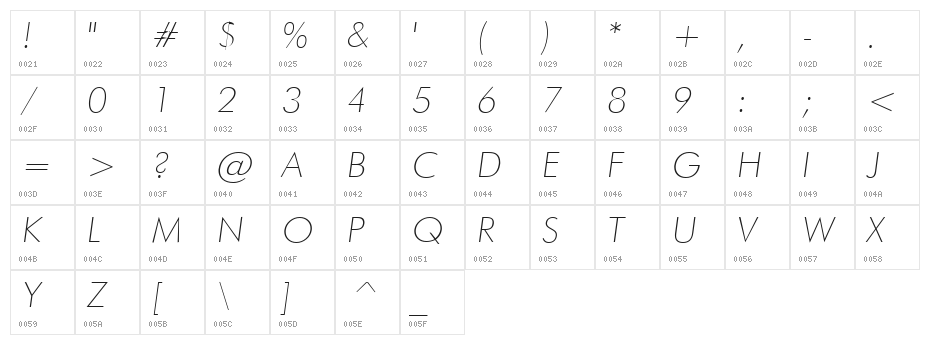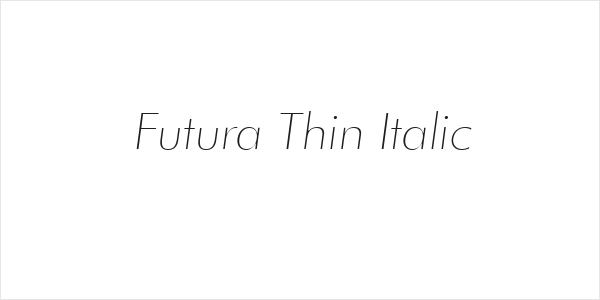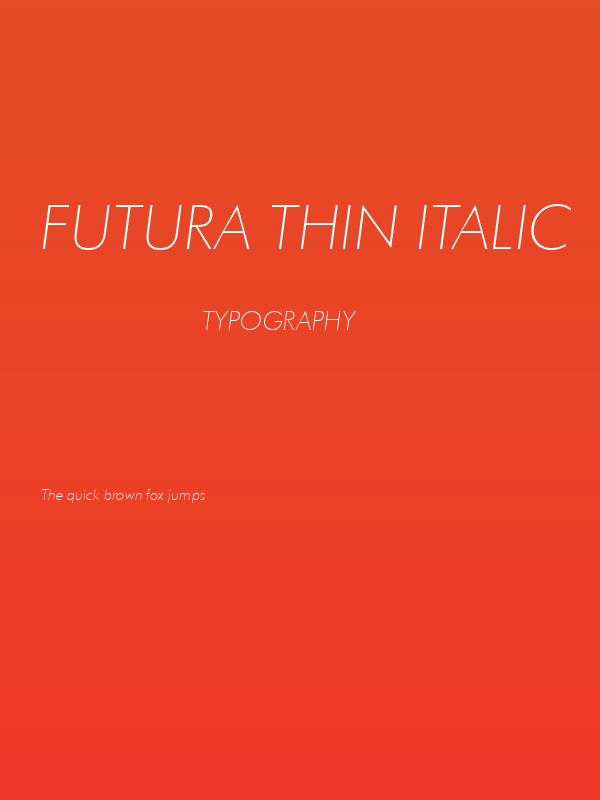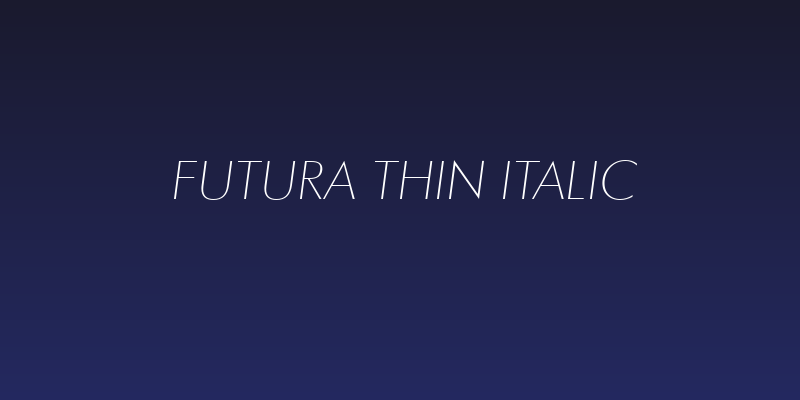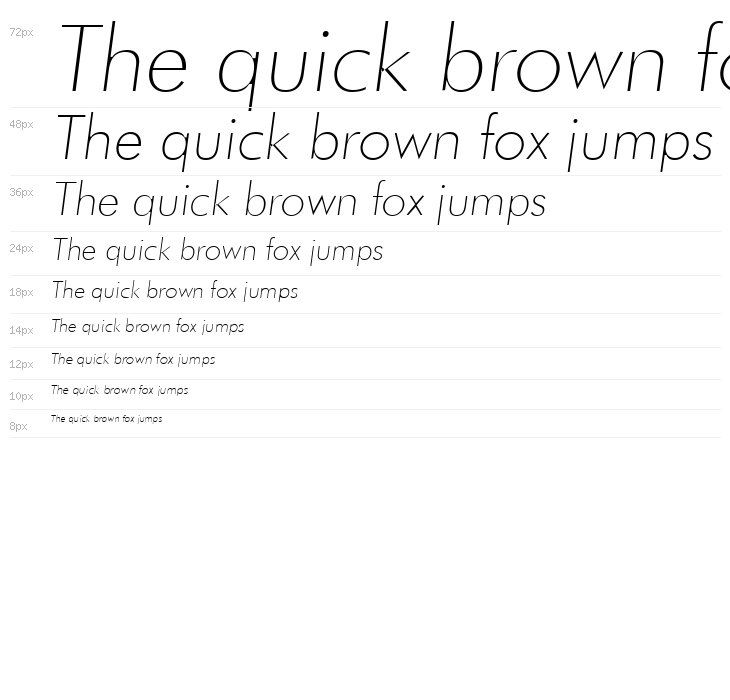
Futura Thin Italic Font
Futura Thin Italic Description
This font is a sleek and modern sans-serif typeface characterized by its thin, elegant lines and italicized style. The letters are clean and geometric, with a consistent stroke width that gives it a minimalist and contemporary appearance. The uppercase and lowercase letters maintain a harmonious balance, while the numerals and special characters are designed with the same precision and clarity. The italic slant adds a dynamic and sophisticated touch, making it suitable for a variety of design applications.
| Use Case | Headlines, Logos, Editorial design |
| Proposed Projects | Ideal for use in fashion magazines, modern branding, elegant invitations, and minimalist web design. |